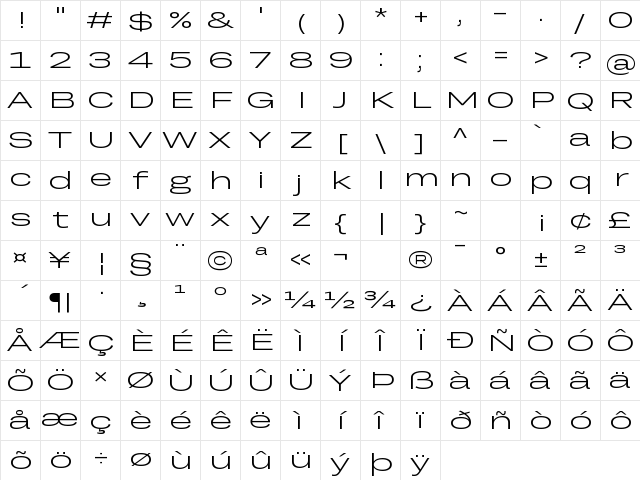
Grtsk Giga Light Regular
Foundry: BlackFoundry
Grtsk Giga Light Family
Complete Grtsk Giga Light Regular glyph index. Displaying only characters natively supported by Grtsk Giga Light Regular font.
Design Context for Grtsk Giga Light
Grtsk Giga Light is a composed and adaptable typeface that performs quietly and consistently across a wide range of design contexts. Its slender proportions lend an understated elegance to any composition.
Who designed the Grtsk Giga Light Regular font?